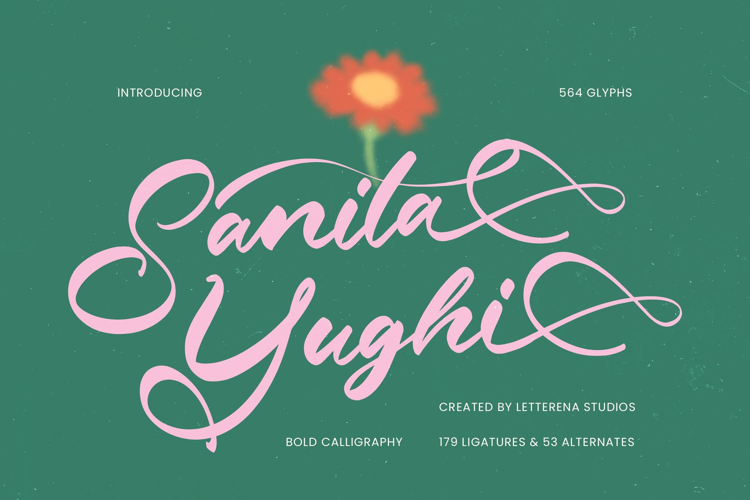
Senila | Script Fonts
The Senila font was inspired by playfull and cheerfull vibes itself. Which this font wants to present Groovy but tends to more aplicable for terto design, elegance but looks relaxed and is suitable for use in several aspects of design design such as, product design, Packaging Design, Food Product, Tags product, Branding Product, Logo Design T-shirt Design etc.
So the inspiration and narrative that I want to build refers to my desire to make Senila font as a font that can fill your design ideas and inspiration.
This font has a tropical, flexible, Playfull, fun feel. which you can see in the visual fields and lines contained in the Senila font. which is where the basic foundation of this font has a Script font type which of course is very flexible to be used in any field. such as logo design, posters, tourist brochures, pamphlets, valentine, Christmas, Easter letters and posters, as well as presentations for tourist sites.